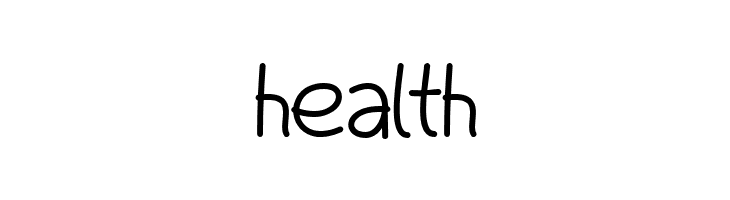
Tall, narrow handwritten script with playful, fluid strokes.
Thin, expressive handwritten script with a casual, organic feel.
Elegant, handwritten script with tall, narrow forms and fluid strokes.